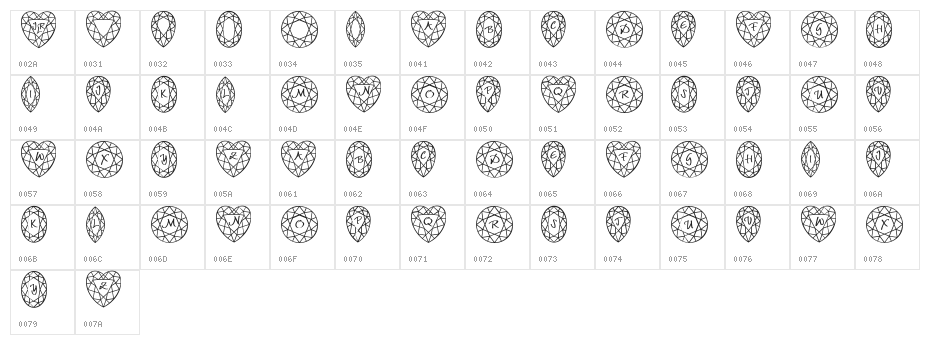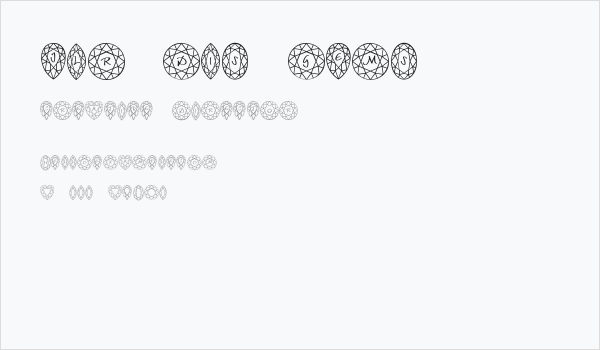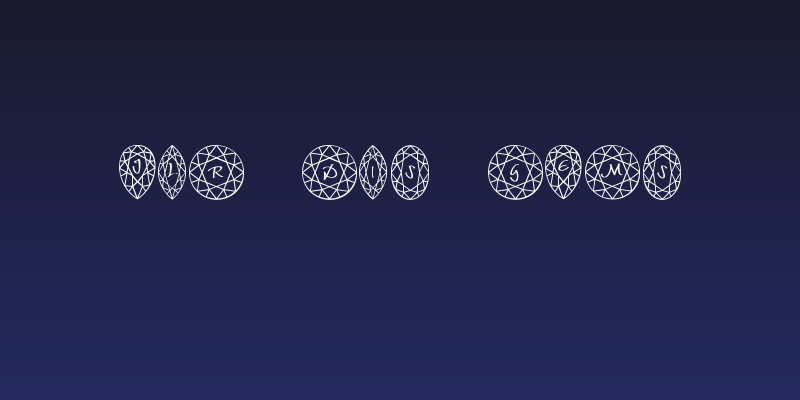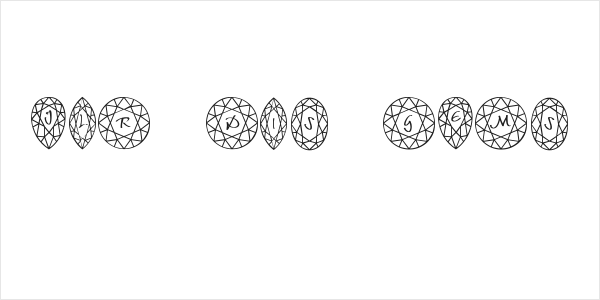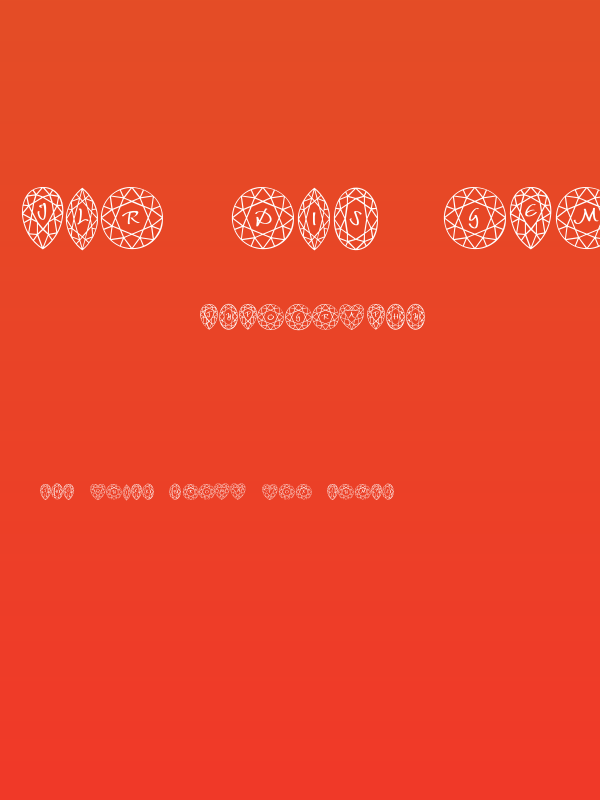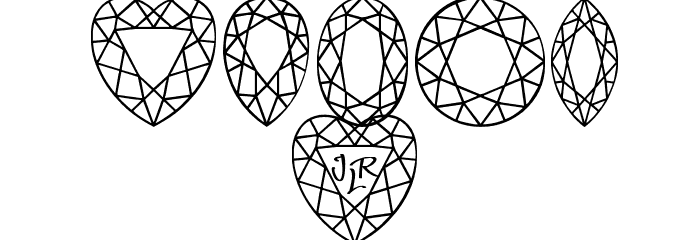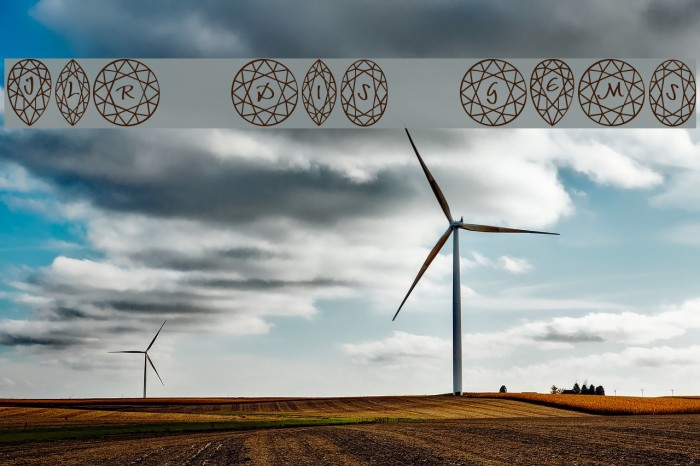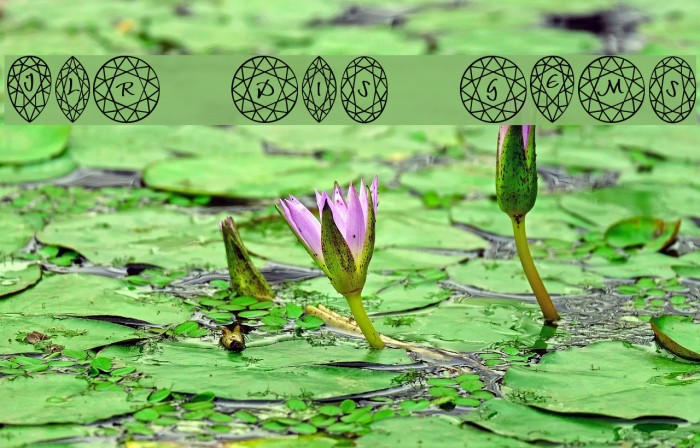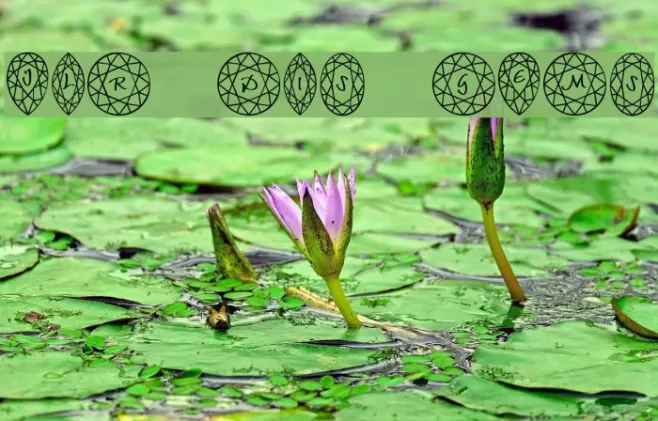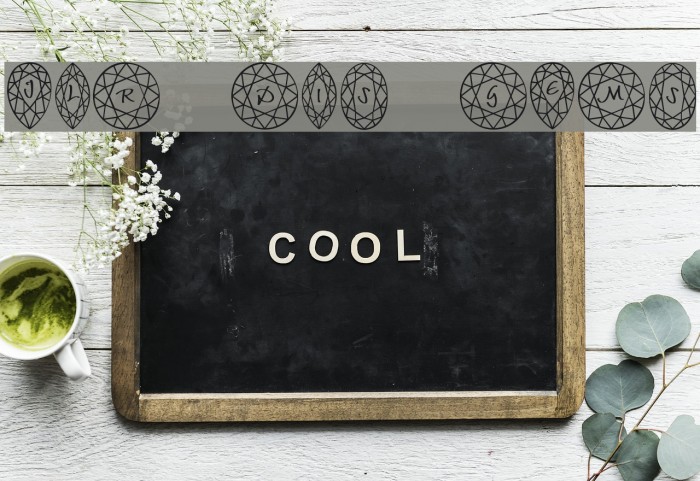
JLR Di's Gems Font
JLR Di's Gems Description
This decorative font features letters encased in gem-like shapes, each character resembling a cut gemstone with intricate facets. The uppercase and lowercase letters are consistently styled, offering a cohesive look. The font's unique design makes it stand out, with each letter appearing as if it is set within a heart or oval-shaped jewel. This artistic approach gives the font a luxurious and elegant feel, perfect for projects that require a touch of sophistication and glamour. The characters are well-defined, with clear lines and a consistent geometric pattern that enhances readability while maintaining its decorative appeal.
| Use Case | Logos, Headlines, Invitations |
| Proposed Projects | Ideal for jewelry branding, wedding invitations, luxury product packaging, and decorative headlines. |